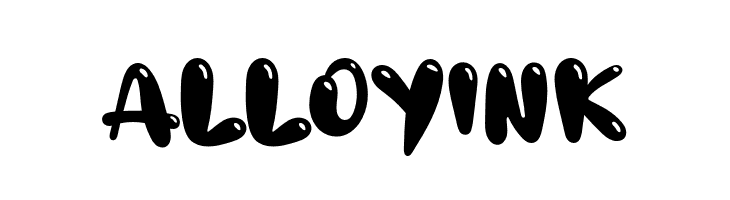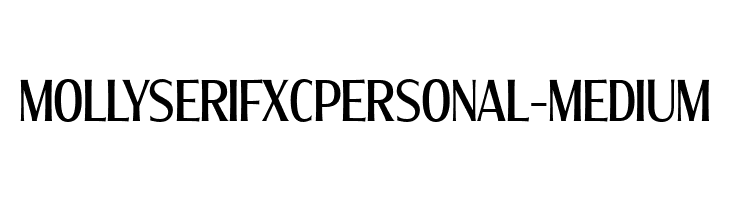
A playful, hand-drawn font with quirky, irregular letterforms.
A modern italic font with clean lines and smooth curves.
A calligraphic and artistic font with fluid strokes and dynamic elegance.
A rounded, playful sans-serif font with geometric shapes.
A bold, staggered italic font with rough edges and a dynamic style.
A playful, hand-drawn font with bold, rounded characters and a whimsical style.
Pixelated, retro-style font with blocky characters.
A bold, rounded font with a playful and modern design.
A lively and elegant script font with flowing, cursive letterforms.